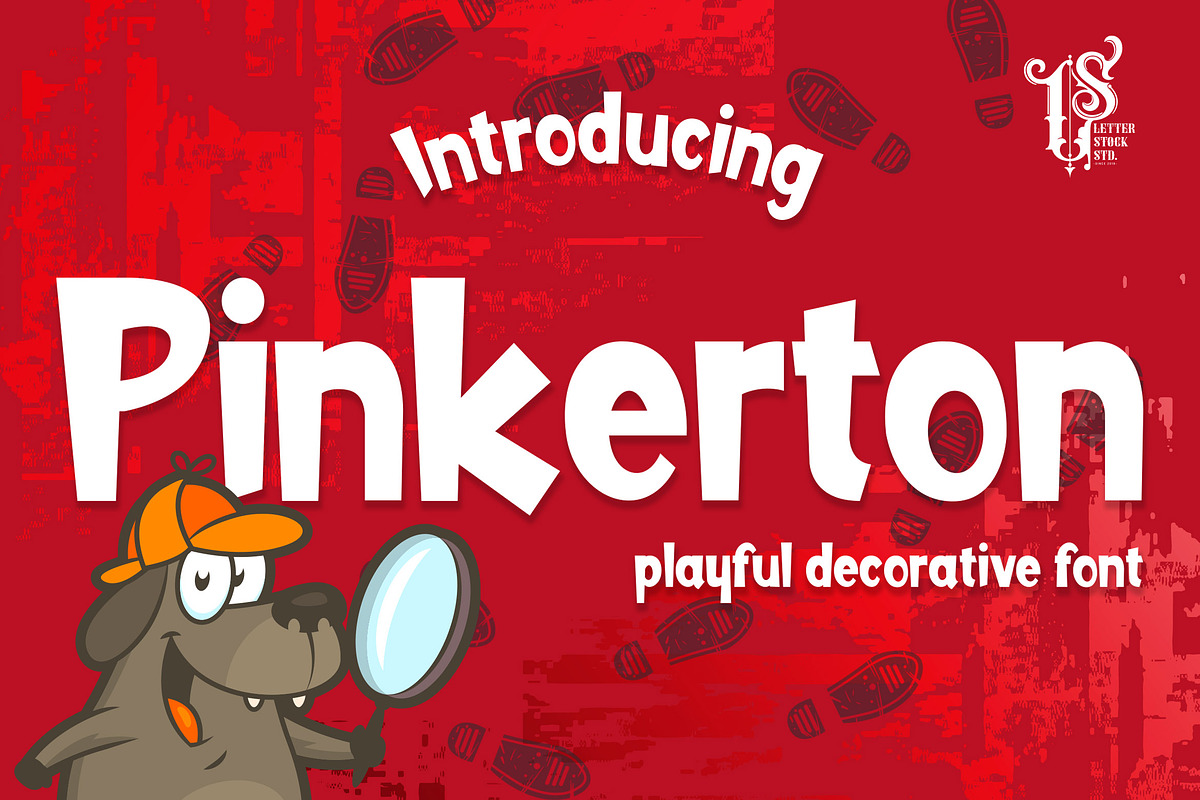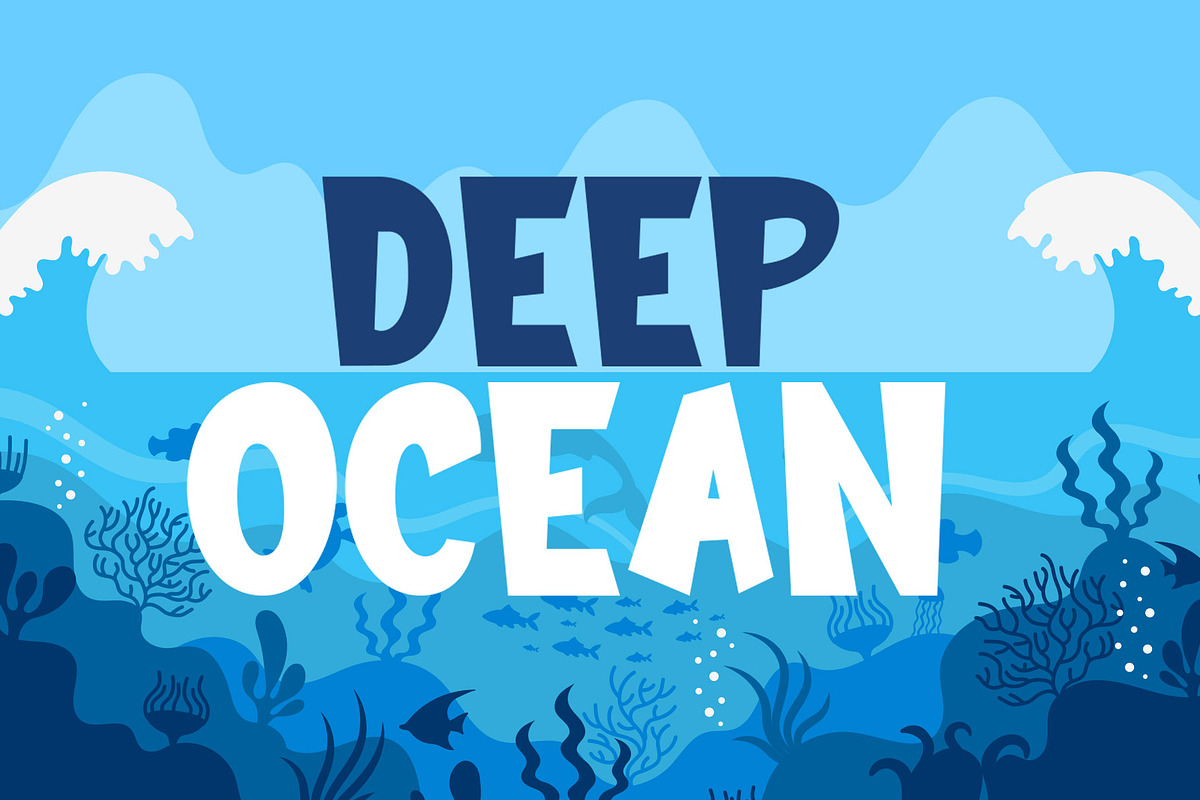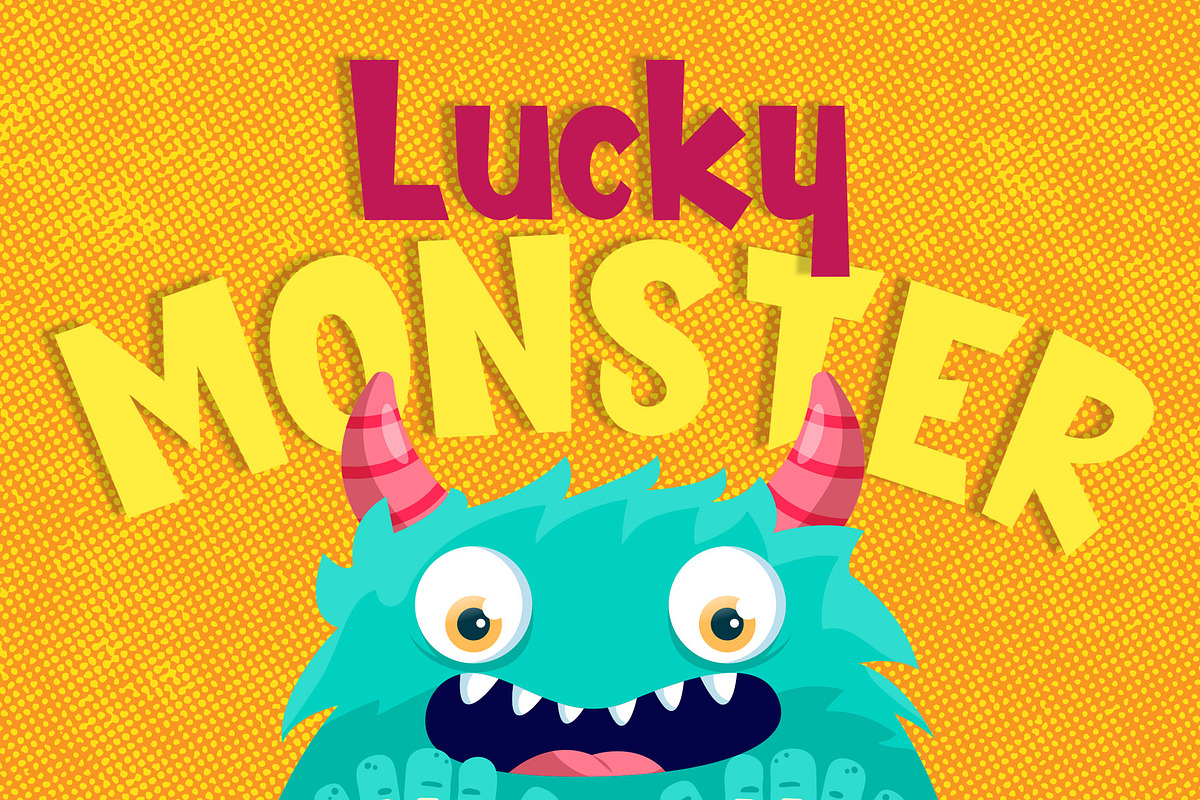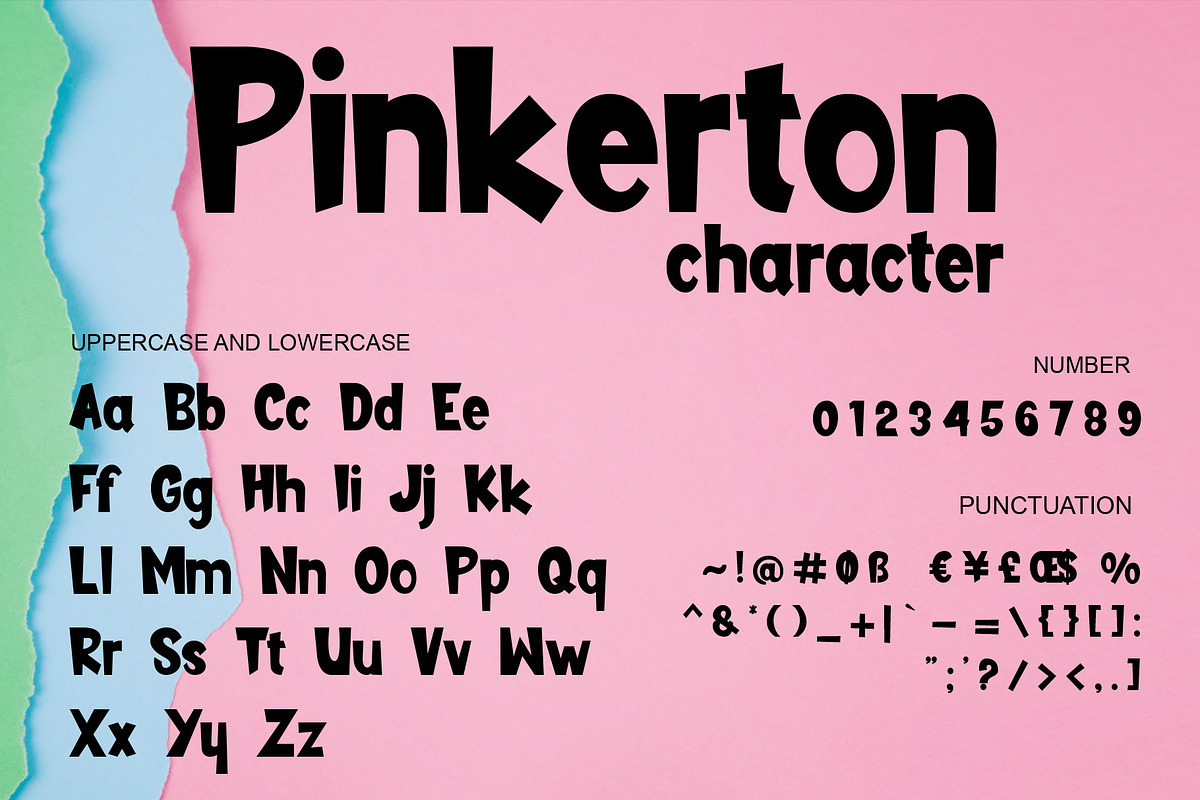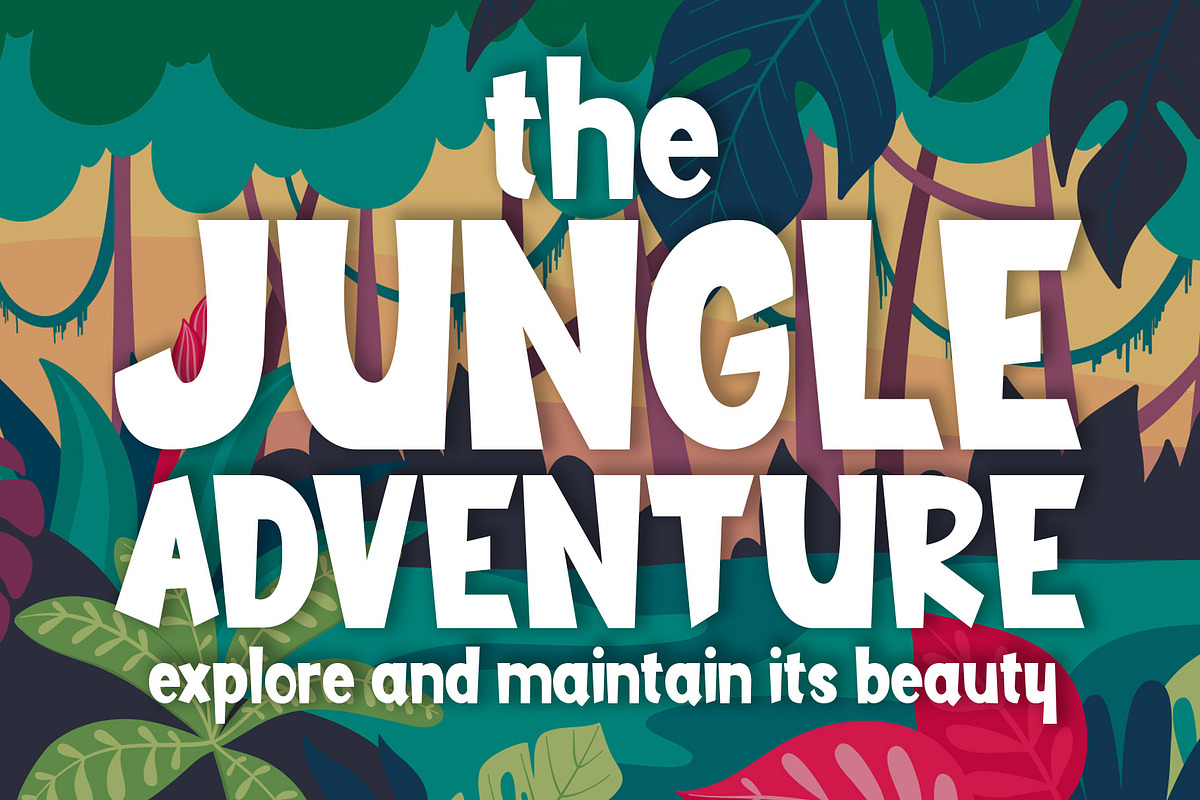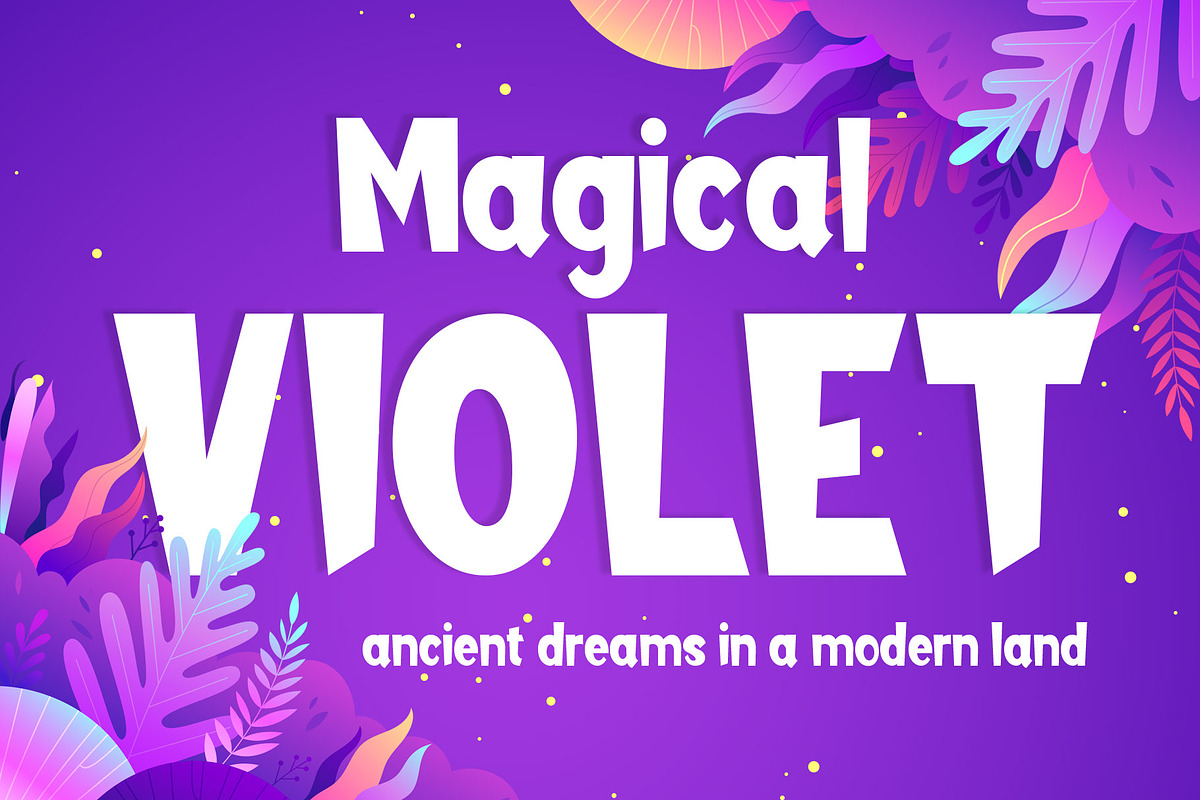
Pinkerton
Introducing Pinkerton font. It was inspired from a cartoon that i saw on television, and it was originally crafted by hand to add natural handmade feeling than i make it clean with pentool.
We improvise it a little bit to make a playful feel, this font is bold so and it can look strong if you use it for branding or even title for your poster design with playful decorative style.
Opentype features: Pinkerton Font is very good looking in playful decorative logotype, labels, t-shirt prints, product packaging, invitations, advertising and others.
If you looking for a playful decorative font, than this item is a good choice for you because this font have a strong playful feel.